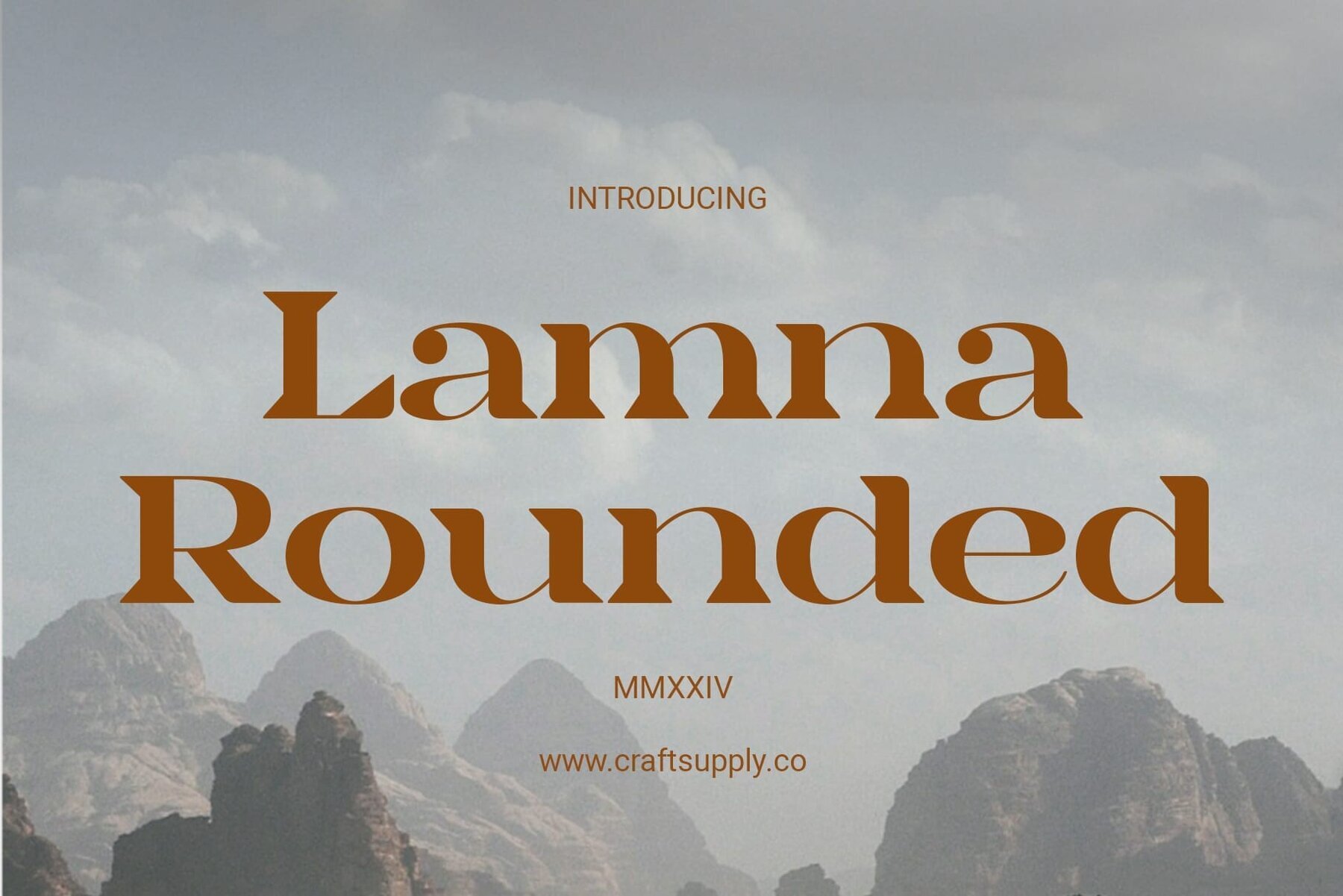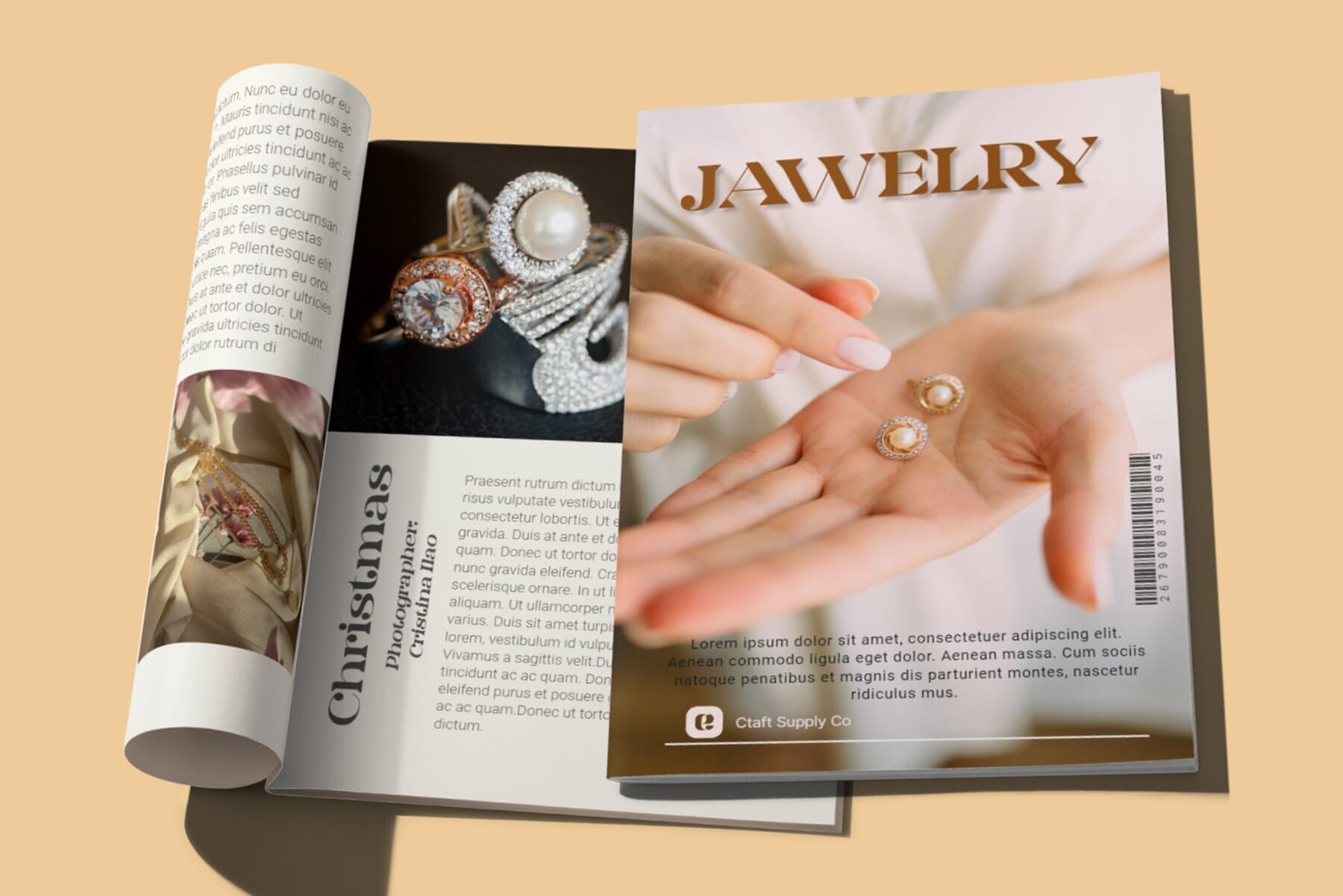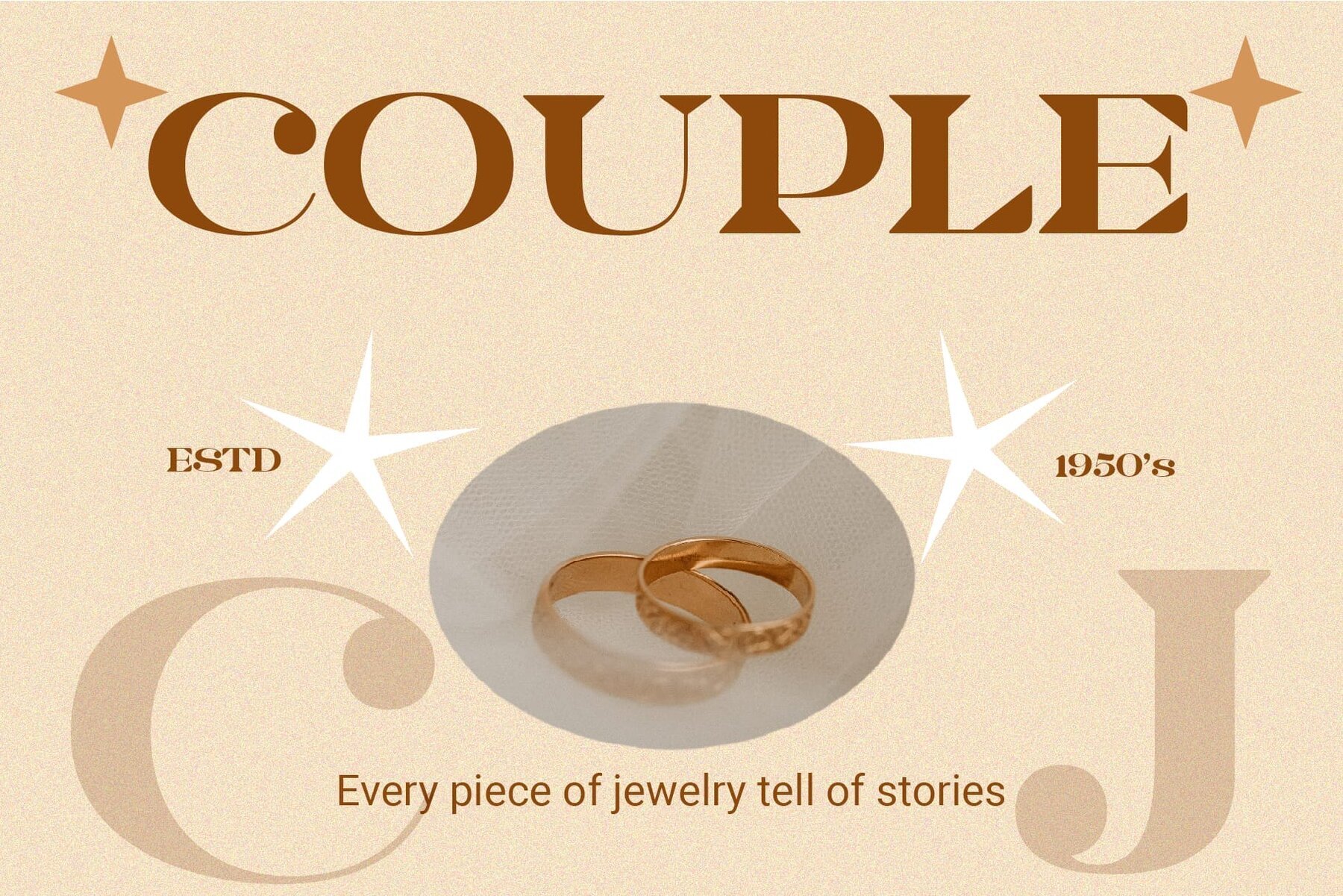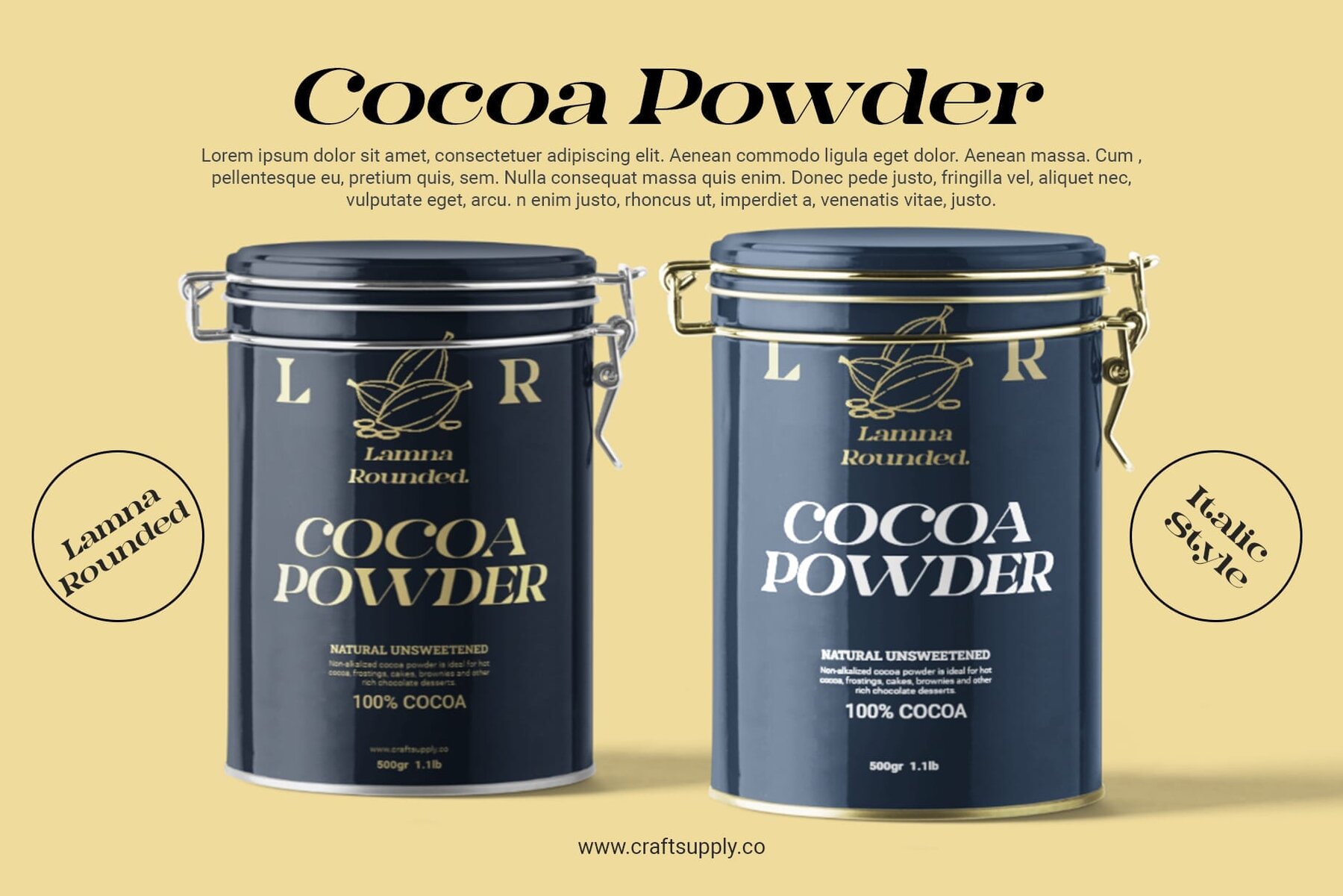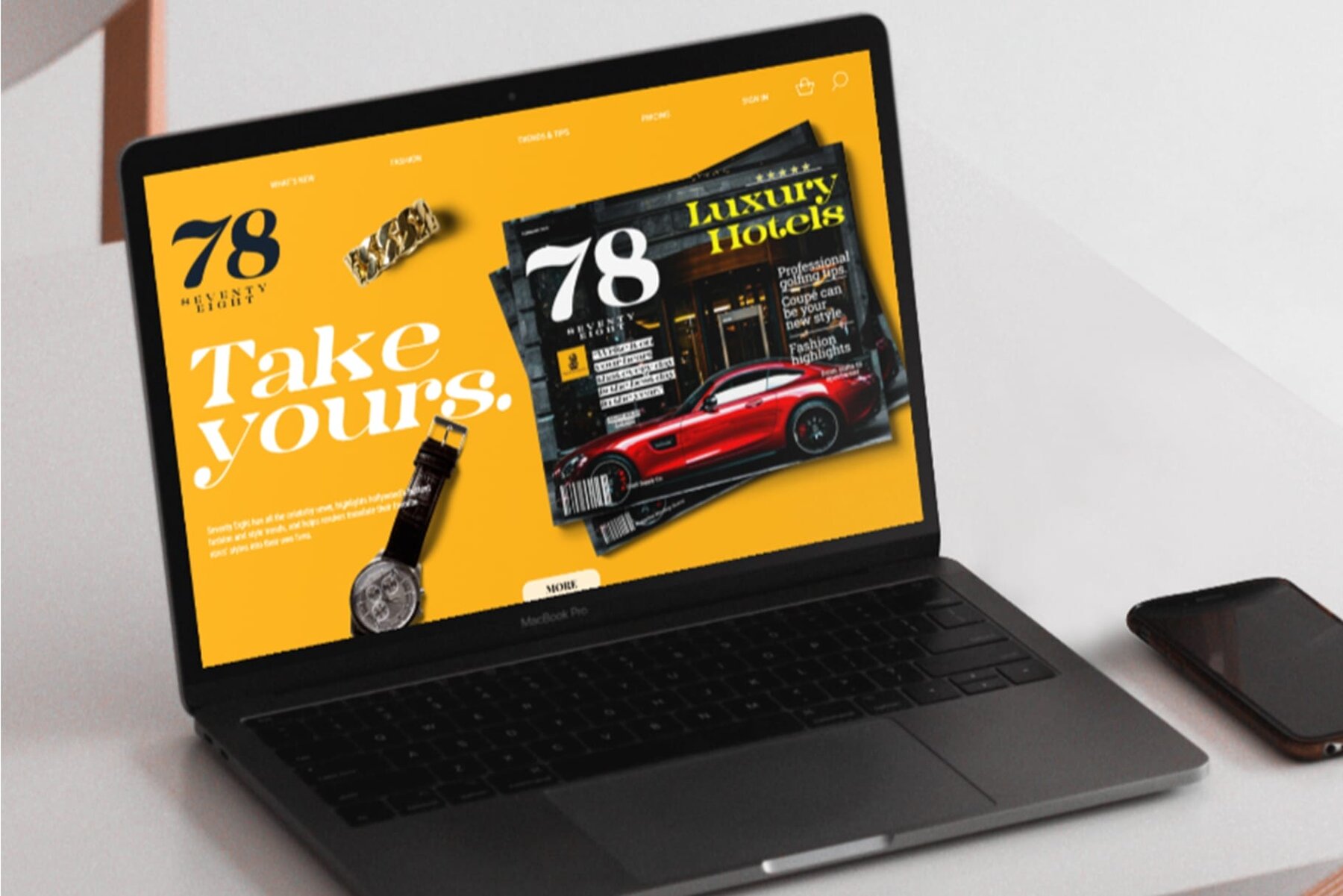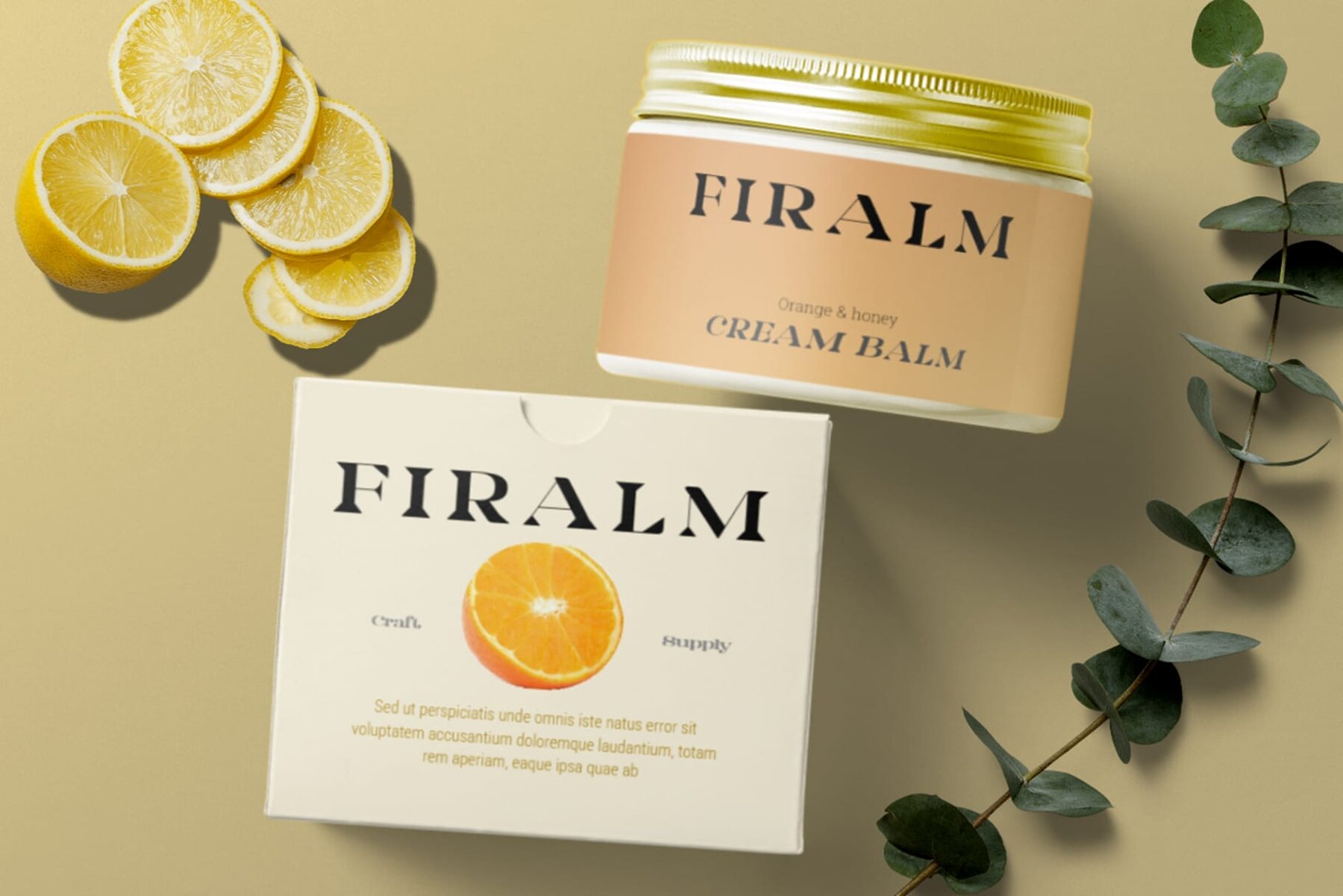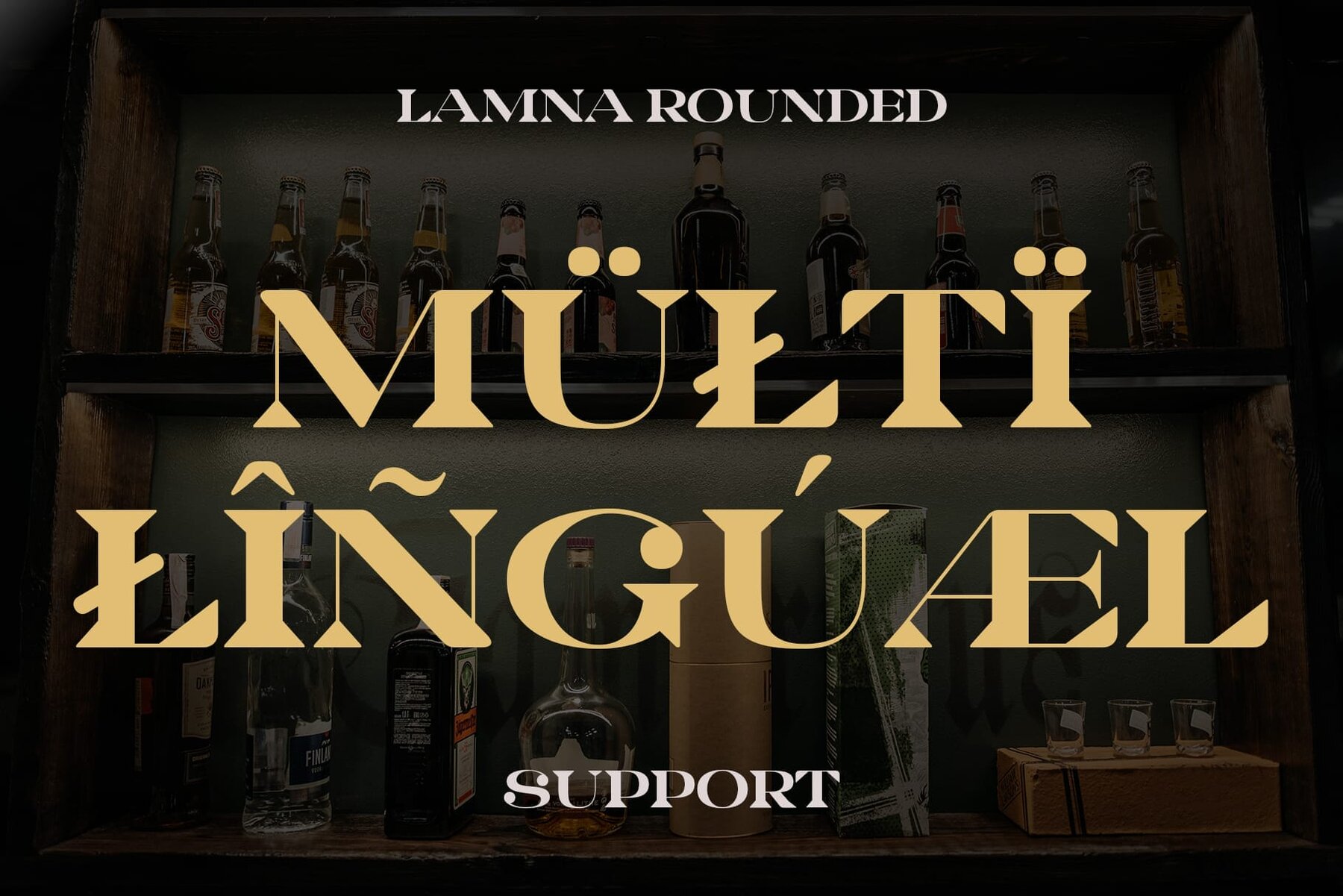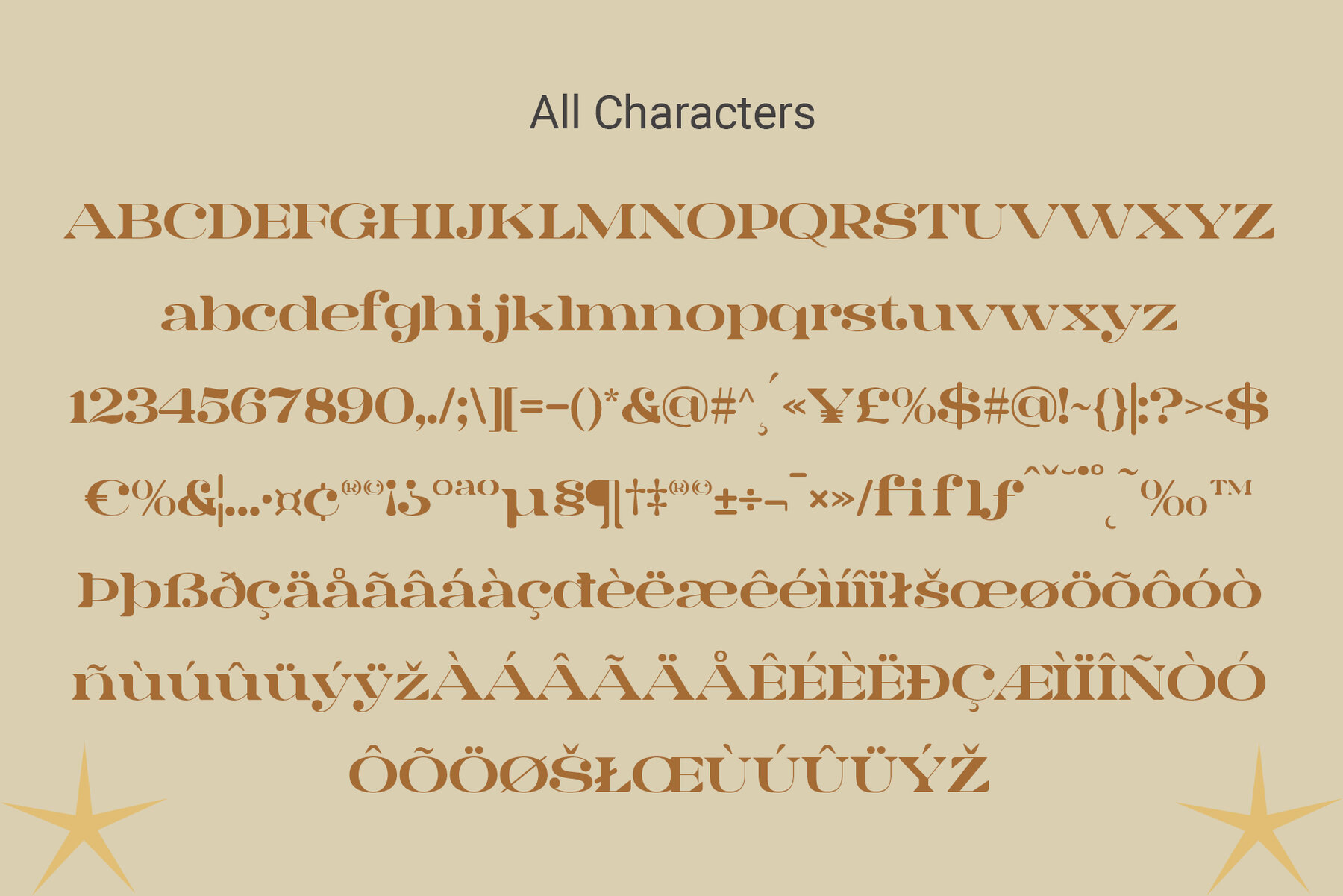
Lamna Rounded Font
Lamna Rounded by Craft Supply Co. embodies a distinctive high-contrast serif style infused with elegance. Its bold strokes paired with delicate serifs create a captivating visual impact. This font’s blend of sophistication and friendliness makes it suitable for various design projects, including branding, editorial layouts, and web design, delivering timeless elegance. Refine your typography with Lamna Rounded, combining sophisticated high-contrast styles with a warm, approachable feel. Use this typeface without the need for specialized software. If you have any inquiries or need assistance, please feel free to contact us. We appreciate your support in enhancing your creative projects! Best regards, Craft Supply Co.Lamna Rounded: The Elegance of High-Contrast Serif
Key Characteristics
Versatility Across Projects
Elevate Your Designs